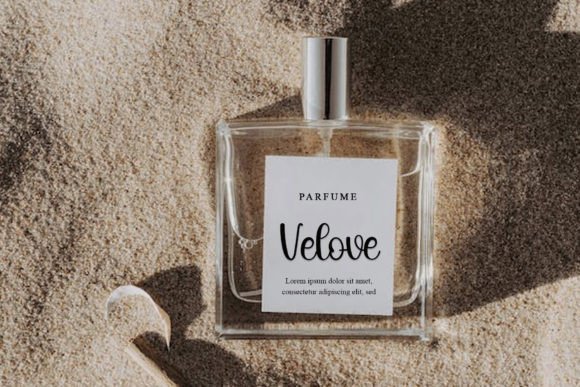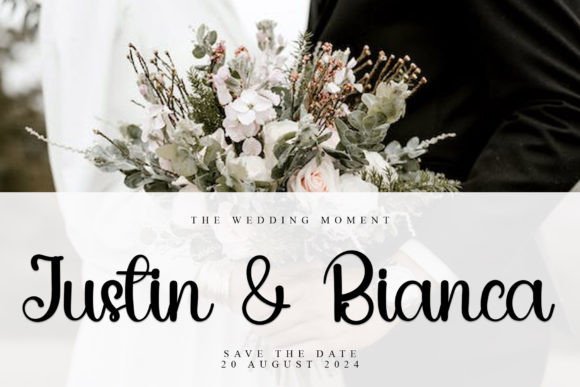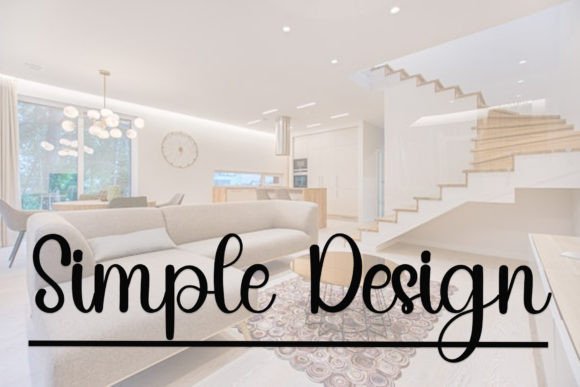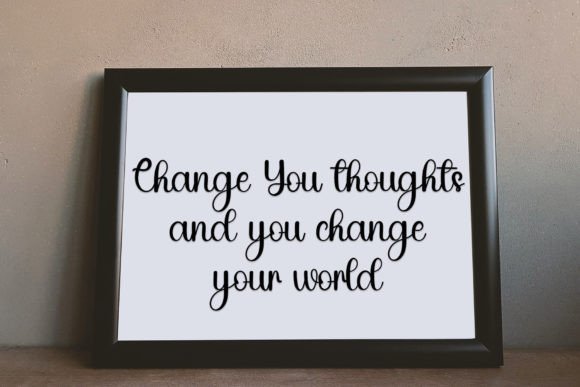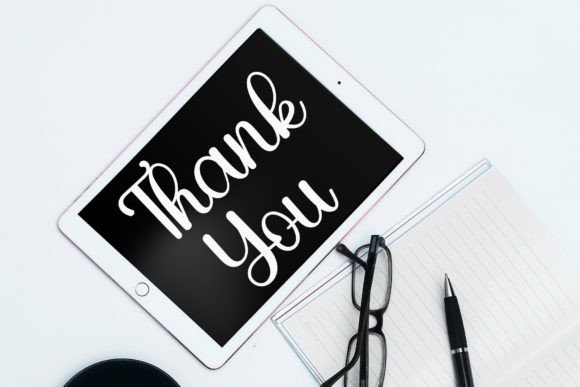
The Ultimate Guide to Always Font: Elevate Your Designs with Elegance and Fun
I’ll never forget the time I was working on a DIY project for a client’s wedding invitation. I had the perfect design concept, but I was struggling to find a font that captured the right balance of elegance and playfulness. That’s when I stumbled upon Always Font, a beautiful handwritten script that instantly elevated my design. In this article, I’ll share my experience with Always Font, its features, and how to make the most of it in your creative projects.
An Honest Review of Always Font
Always Font is a fun and elegant handwritten font that’s perfect for designers, crafters, and creative hobbyists. Here’s what I love about it:
- ✨ Unique and eye-catching letterforms that add a touch of personality to any design
- 💫 Supports OpenType features, glyphs, and stylistic alternates for added versatility
- 🎨 Perfect for a wide range of creative projects, from Instagram graphics to calligraphy scripts
While Always Font is an excellent choice, it’s not without its quirks. Here are a few things to keep in mind:
- 🤔 Limited availability of certain special characters
The Story Behind Always Font
Always Font was created by a team of designers who wanted to craft a unique and versatile font that would inspire creativity. With a focus on elegance and playfulness, they carefully crafted each letterform to ensure that it would be perfect for a wide range of design projects. From DIY crafts to professional designs, Always Font is sure to become a favorite.
| What type of projects is Always Font suitable for? | Always Font is perfect for a wide range of creative projects, including DIY crafts, social media graphics, calligraphy scripts, and more. |
| Is Always Font available in different weights or styles? | Currently, Always Font is available in a single weight. However, the design team may release additional weights or styles in the future. |